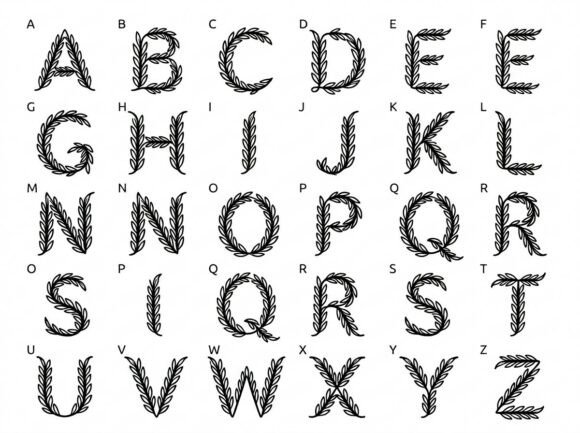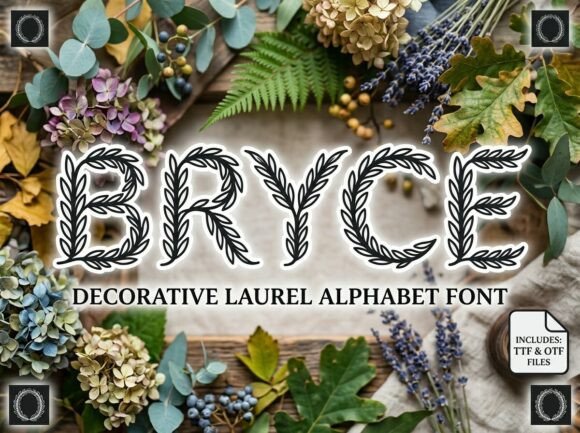
Bryce Font: The Ultimate Display Typeface for Creative Rebels
Are you tired of using the same old fonts that blend in with the crowd? Look no further than the Bryce Font, an avant-garde decorative display font designed to make a statement. With its commanding visual personality and unique artistic flourishes, this typeface is perfect for creators who refuse to blend in.
The Bryce Font is characterized by its strong, artistic soul and high-end, polished finish. This makes it suitable for a wide range of applications, from luxury packaging to experimental editorial layouts. Whether you’re looking to create a bold headline, a signature logo, or a conceptual packaging design, the Bryce Font is the perfect choice.
Ideal for Creative Projects
The Bryce Font is ideal for a variety of creative projects, including:
- High-impact headlines: Make a statement with bold, attention-grabbing headlines that demand attention.
- Signature logos & branding: Create a unique and memorable brand identity with the Bryce Font.
- Conceptual packaging: Add a touch of luxury and sophistication to your packaging designs.
- Poster & social media design: Stand out on social media and create eye-catching posters with the Bryce Font.
A Note on Font Style
Please note that the Bryce Font is an all-caps (uppercase only) display typeface. By omitting lowercase characters, the designer has focused entirely on the intricate craftsmanship of every individual letter, ensuring each one acts as a standalone work of art. This means that the font is perfect for headlines, titles, and other display text, but may not be suitable for body text or other applications where lowercase letters are necessary.
The Benefits of the Bryce Font
So why choose the Bryce Font? Here are just a few benefits of using this unique typeface:
- Unique and memorable: The Bryce Font is sure to make your designs stand out from the crowd.
- High-end and sophisticated: The font’s polished finish makes it perfect for luxury brands and high-end designs.
- Versatile: The Bryce Font can be used for a wide range of applications, from packaging to posters.
Tips for Using the Bryce Font
Here are a few tips for getting the most out of the Bryce Font:
- Use it sparingly: The Bryce Font is a bold and attention-grabbing typeface, so use it sparingly to avoid overwhelming your design.
- Experiment with different colors and textures: The font’s unique artistic flourishes make it perfect for experimenting with different colors and textures.
- Pair it with a neutral font: Pair the Bryce Font with a neutral font to create a striking contrast and add visual interest to your design.
The Bryce Font is a unique and powerful tool for designers and crafters who want to make a statement. With its commanding visual personality and high-end, polished finish, this typeface is perfect for a wide range of creative projects. Whether you’re looking to create a bold headline, a signature logo, or a conceptual packaging design, the Bryce Font is the perfect choice. So why wait? Download the Bryce Font today and start creating stunning designs that demand attention.